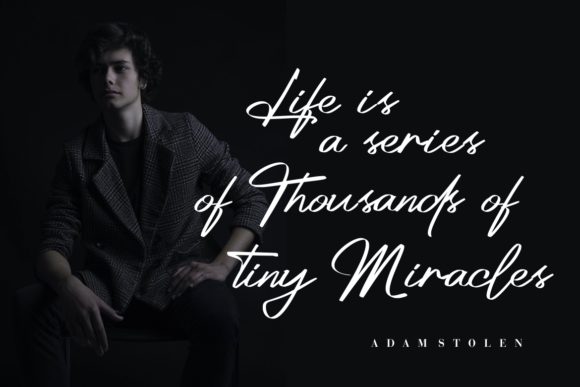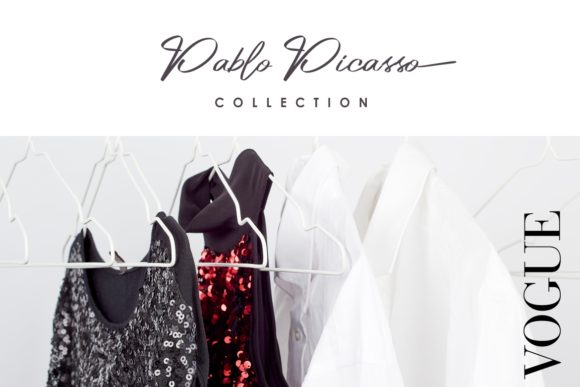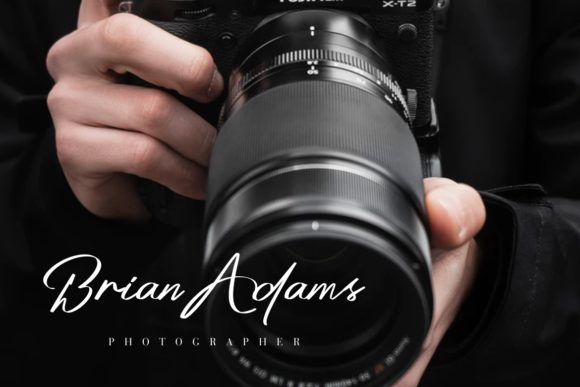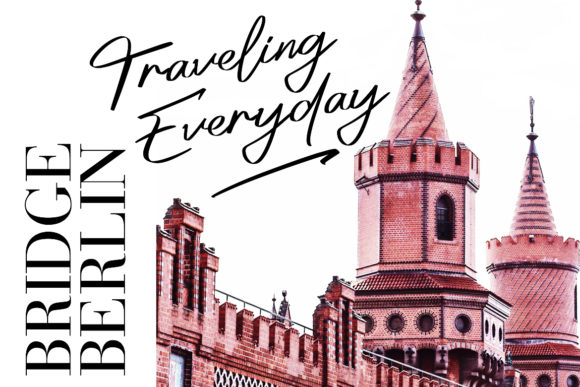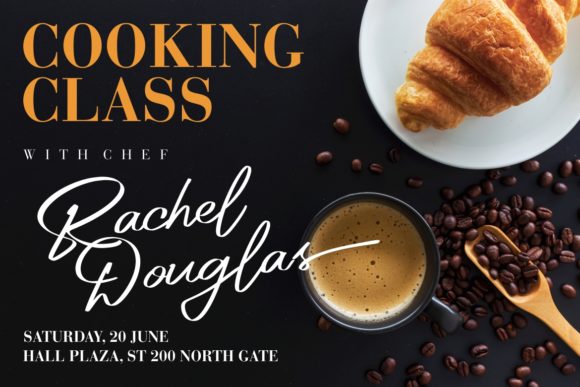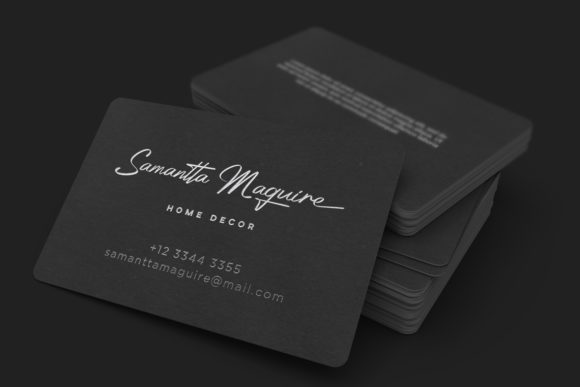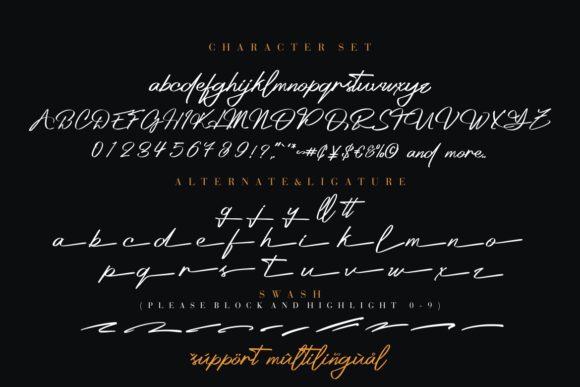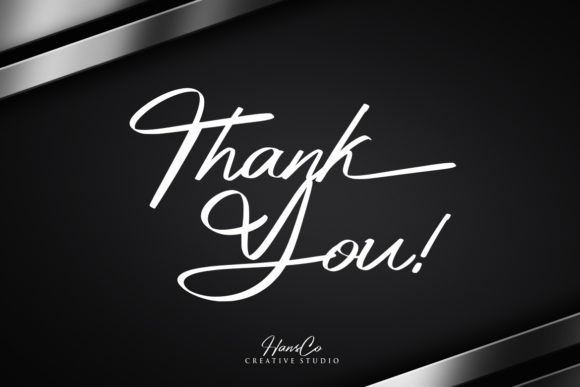
Platinum Font
About Platinum Font
Platinum is a bold and unique script font that will work great for a wide variety of applications. With its sophisticated look, it will deliver any message with confidence and style.